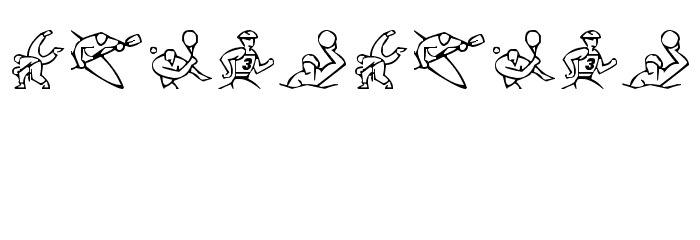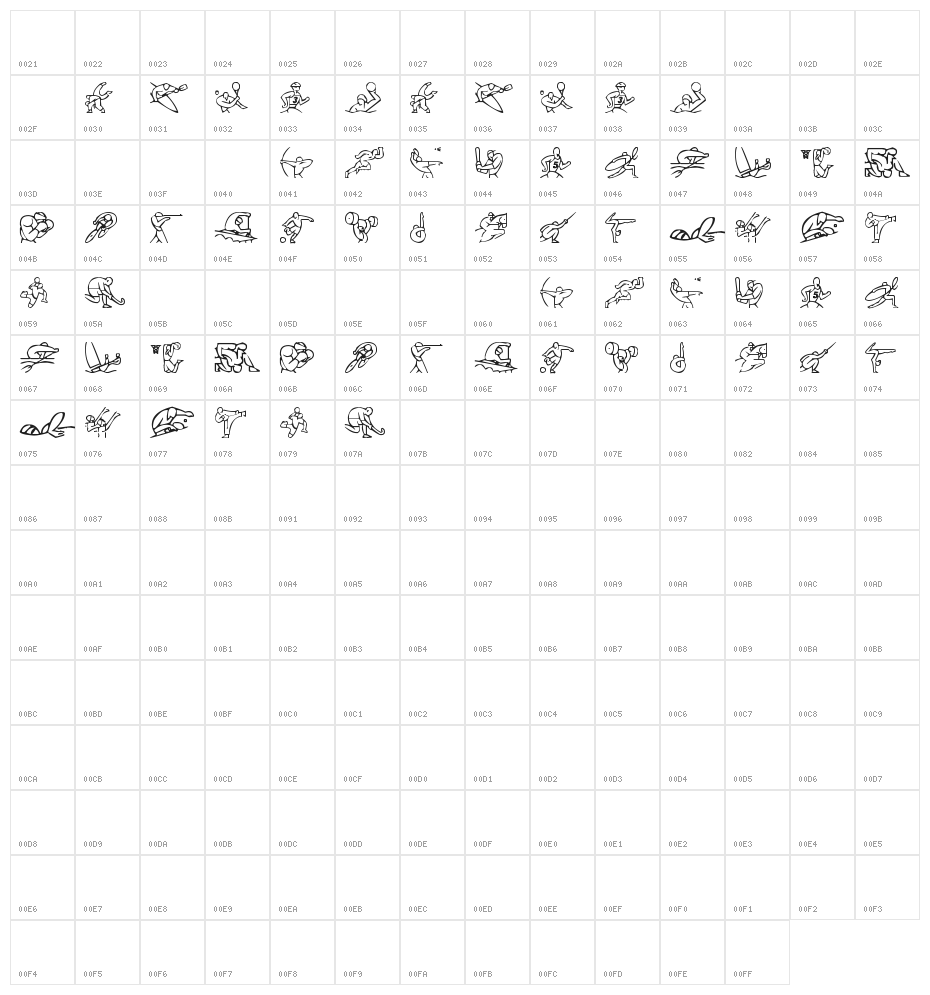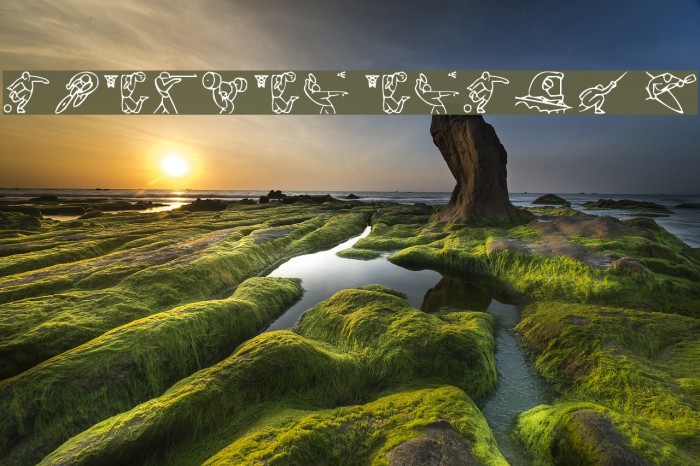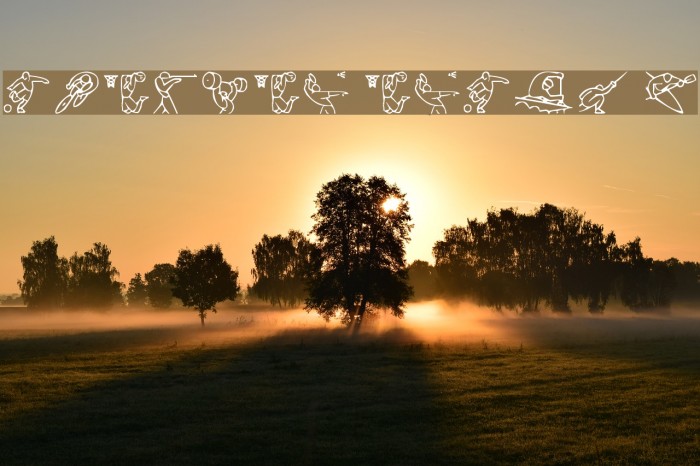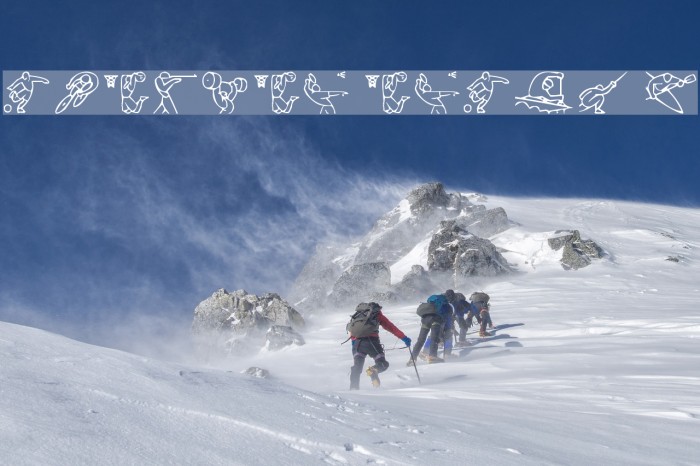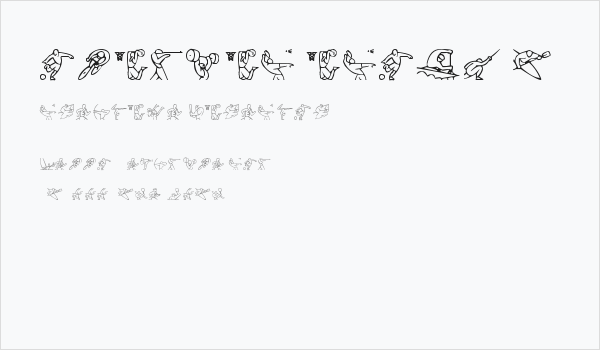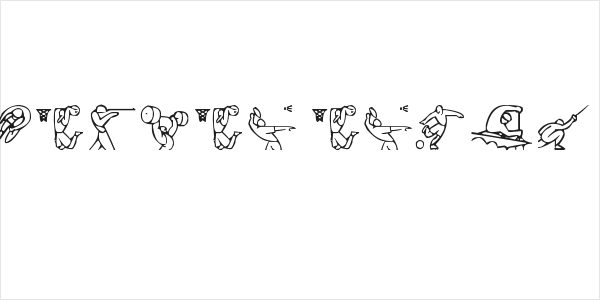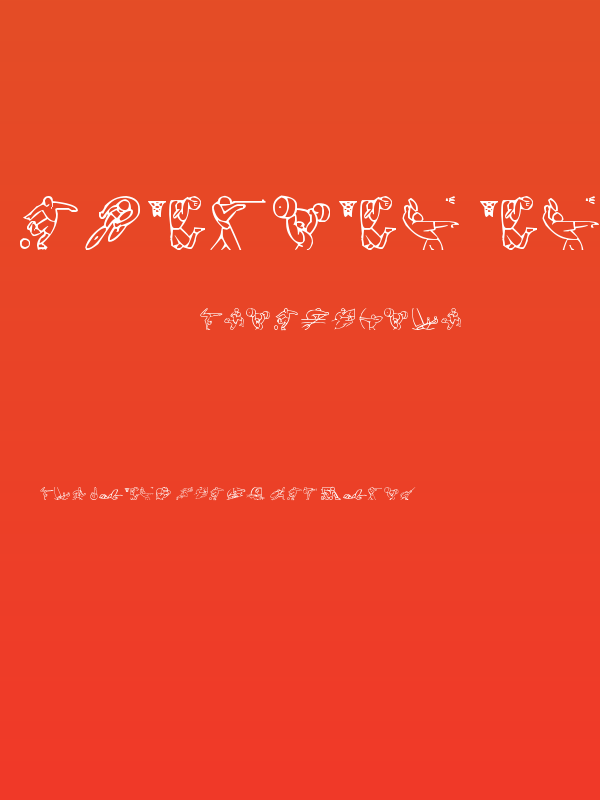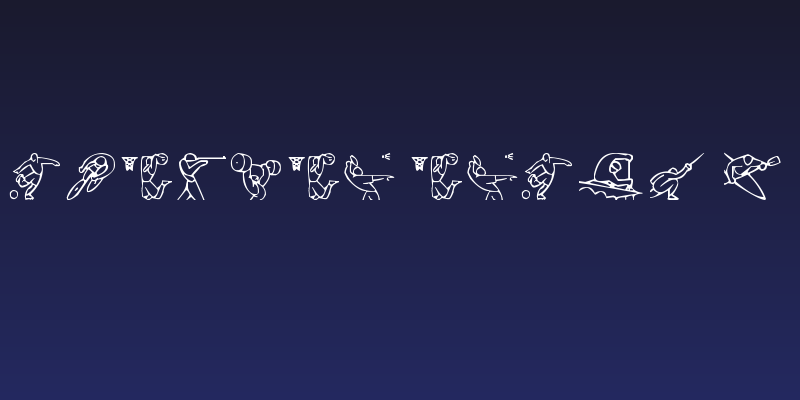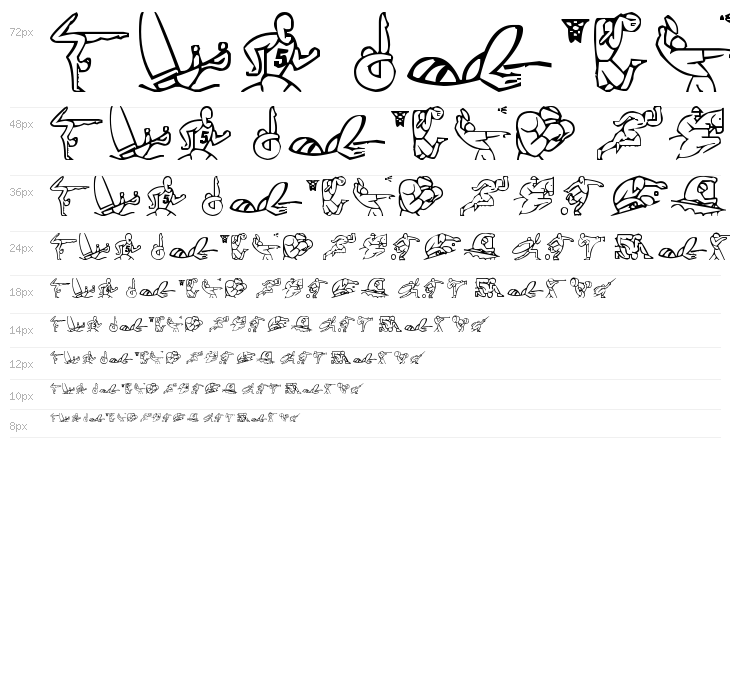
Olimpic Icons 1 Font
Olimpic Icons 1 Description
A set of pictogram-style icons representing various Olympic sports, drawn with continuous, fluid black lines and minimal detail to convey motion and activity.
| Overall Style | Modern, Minimalist, Dynamic |
| Use Case | Icons, Infographics, Posters, Event Branding |
| Proposed Projects | Event signage, infographics, sports programs, educational materials, branding for athletic events. |